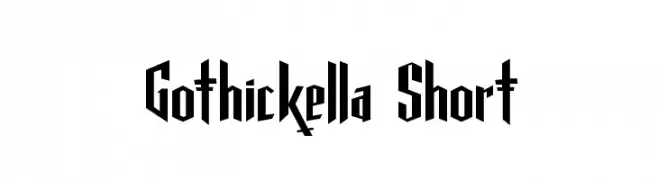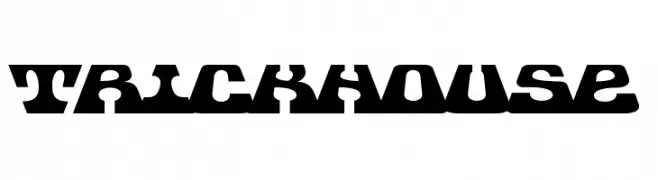
A playful, dripping font with a gooey, cartoonish style.
A playful, bold font with a chunky, hand-drawn style.
Bold, playful emoticon and symbol icons with thick lines and high contrast.
A bold, angular gothic-style font with sharp, elongated characters.
A bold, gothic-inspired font with sharp, angular lines and dramatic serifs.
A bold, geometric font with angular strokes and playful design.
A playful and whimsical font with curly, flowing letterforms.
A bold, italicized font with high contrast and dynamic slanted characters.